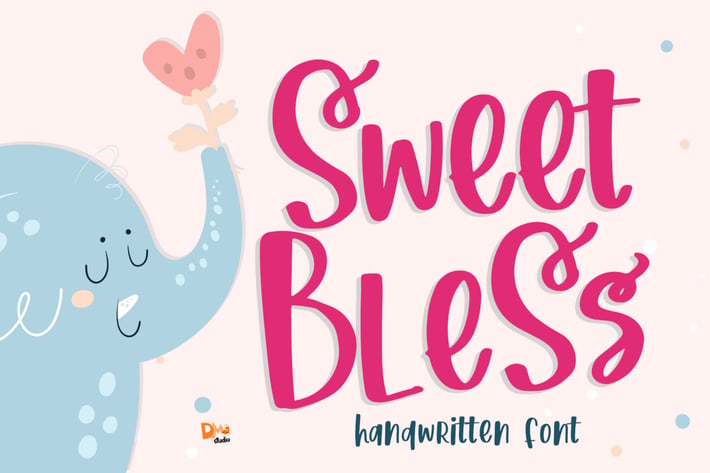
Sweet Bless- Handwritten Font
Sweet Bless Handwritten Font
Introducing, Sweet Bless Handwritten Font! It is a sweet, versatile and lovely handwritten font style. Make your crafty things more wonderful with this font!